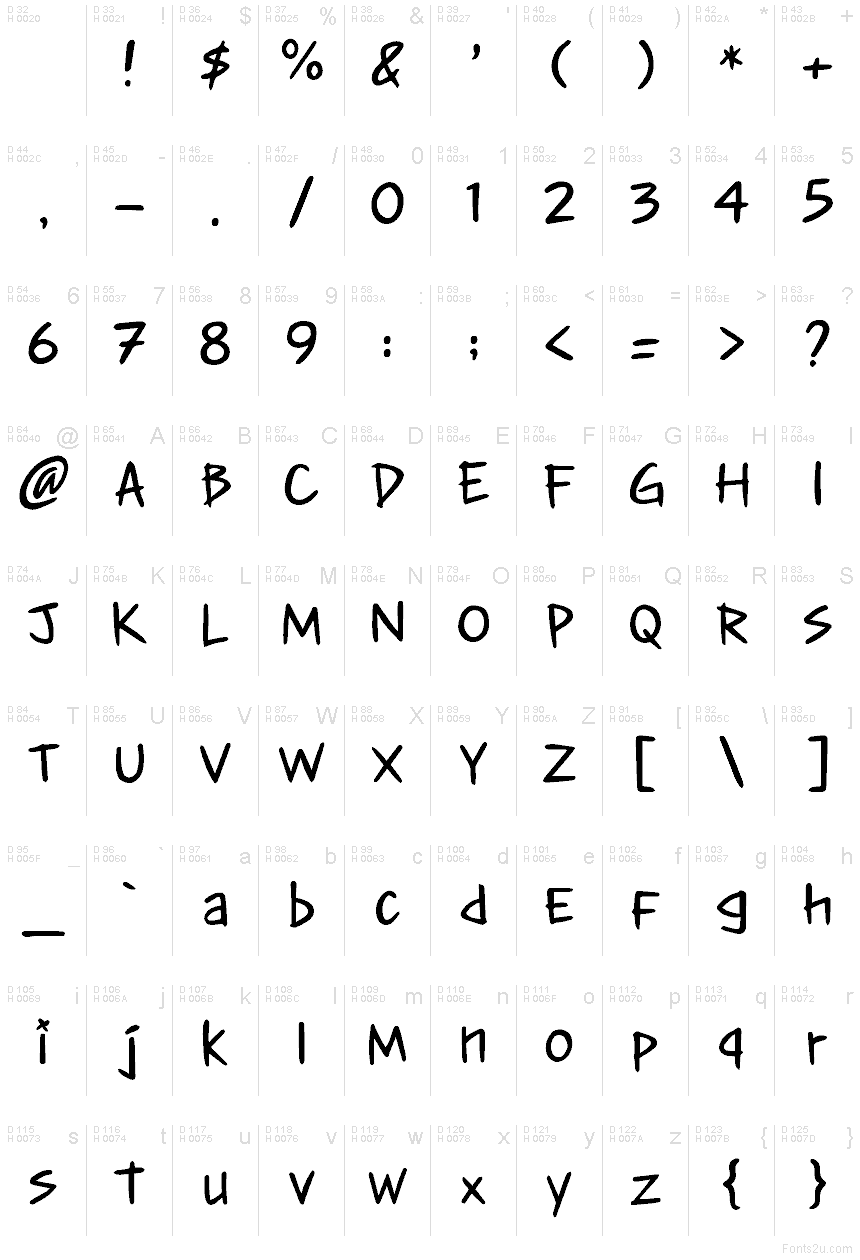
No Fonts No Peace
No Fonts No Peace font by BlackFridayFont FMF is a free handwritten typeface that finally makes loud, friendly lettering easy to read. Thick, inky strokes land with marker-like bite, while the spacing stays steady so stacked lines don’t feel chaotic. It has that hand-scrawled energy—loose edges, a touch of wobble—without losing clarity when you go big or drop to smaller captions.
Using No Fonts No Peace, you can punch up protest posters, bold stickers, classroom materials, youth brand logos, social posts, event flyers, and merch. The rhythm stays cohesive, so headlines snap and short bodies don’t mush together. Pair this free font with a clean, light sans to handle small details, and give it generous line spacing when you’re shouting in all caps.